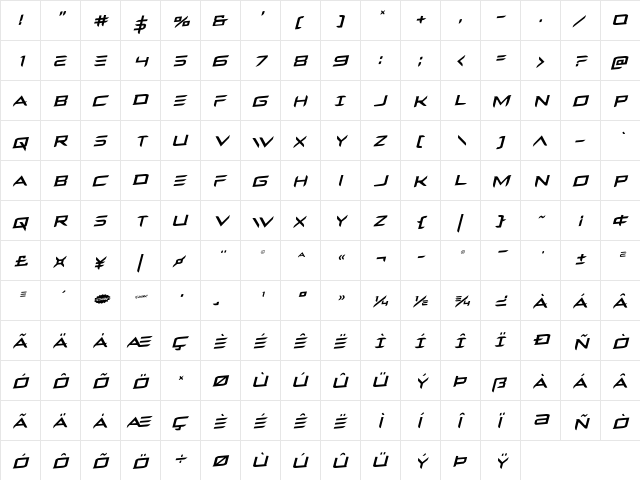
Ferret Face Rotalic Italic
Design Context for Ferret Face Rotalic Typeface
Ferret Face Rotalic offers clean, dependable letterforms without strong stylistic allegiance, making it a practical choice for designers who need flexibility. Its italic angle brings a sense of urgency and motion to the letterforms.
Pro Tip: Use Ferret Face Rotalic for emphasis, pull quotes, and subheadings where its slanted energy can add rhythm to the layout.